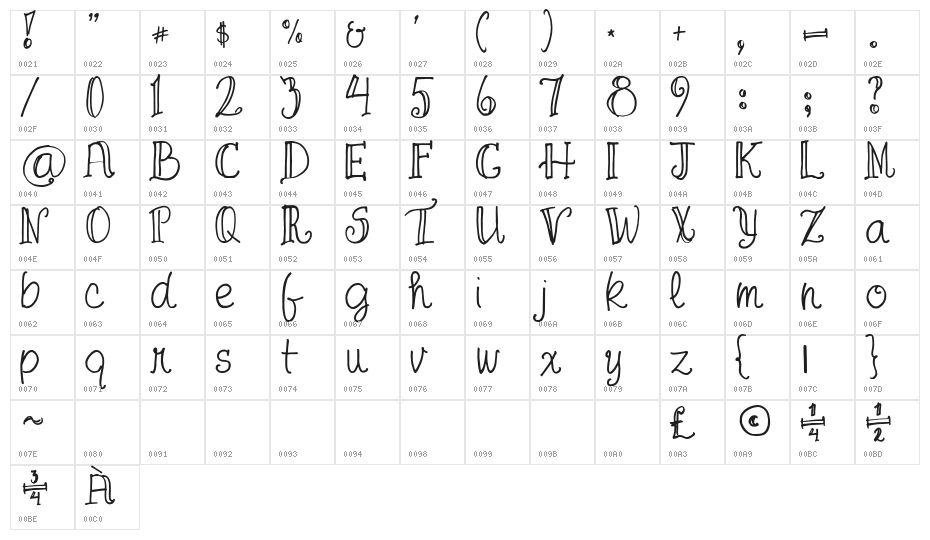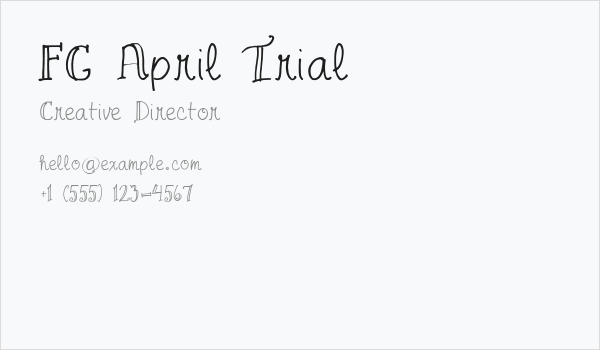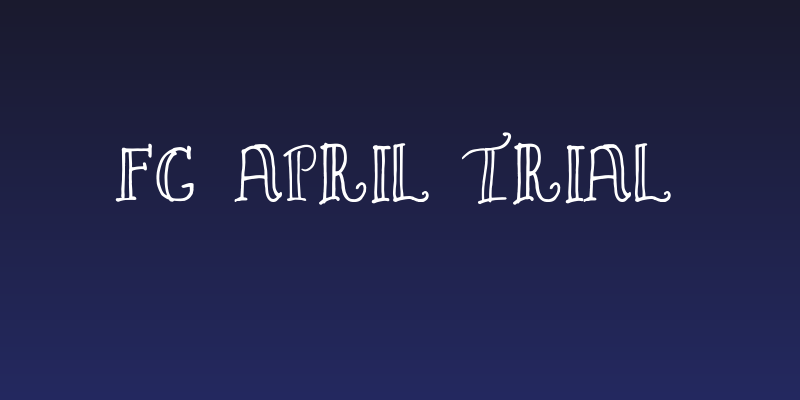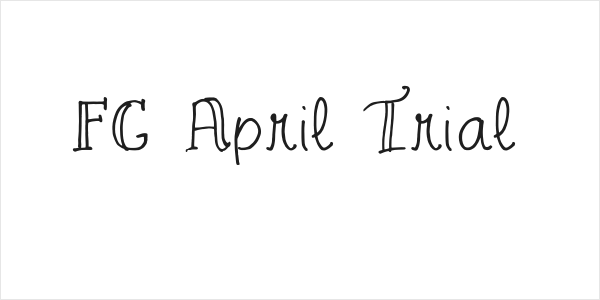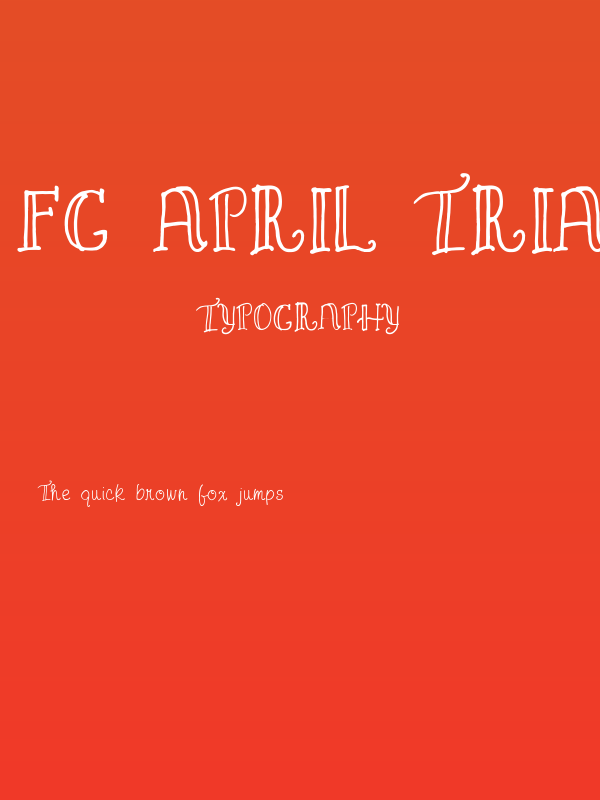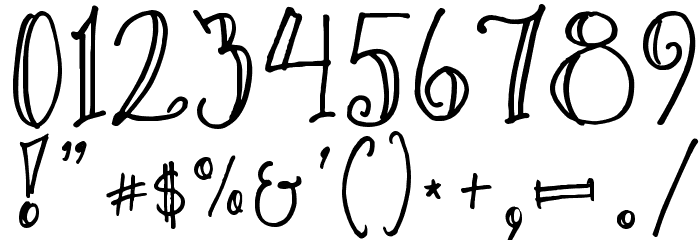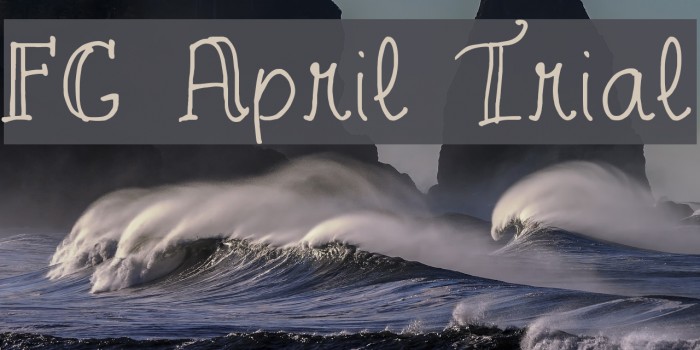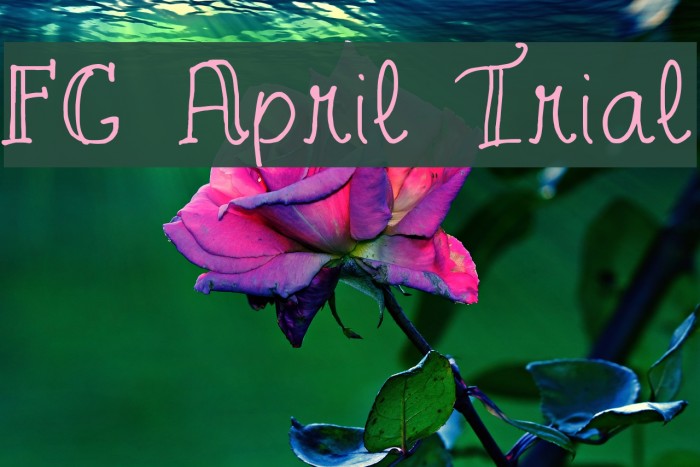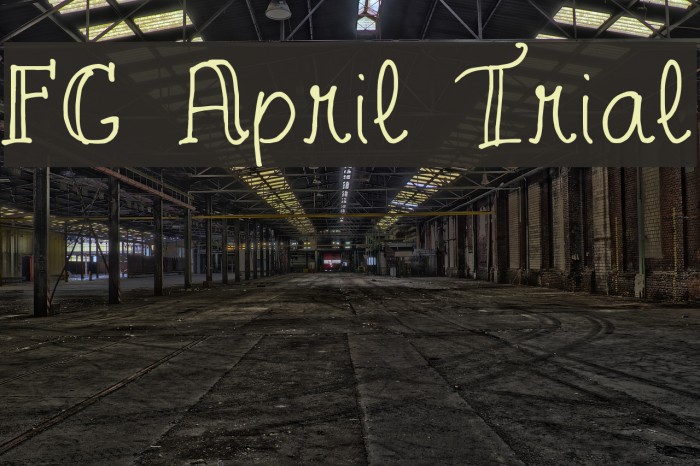
FG April Trial Font
FG April Trial Description
This font features a playful and whimsical design with a handwritten style. The uppercase letters are tall and slightly narrow, with unique curves and loops that add character. The lowercase letters maintain a consistent style, with smooth, flowing lines that create a sense of movement. Numbers are bold and distinct, with a quirky flair that matches the overall aesthetic. Special characters are creatively designed, enhancing the font's playful nature. The font's irregular strokes and varying thicknesses give it a dynamic and lively appearance, making it ideal for projects that require a fun and informal touch.
| Proposed Projects | Ideal for children's books, greeting cards, playful branding, and creative posters. |